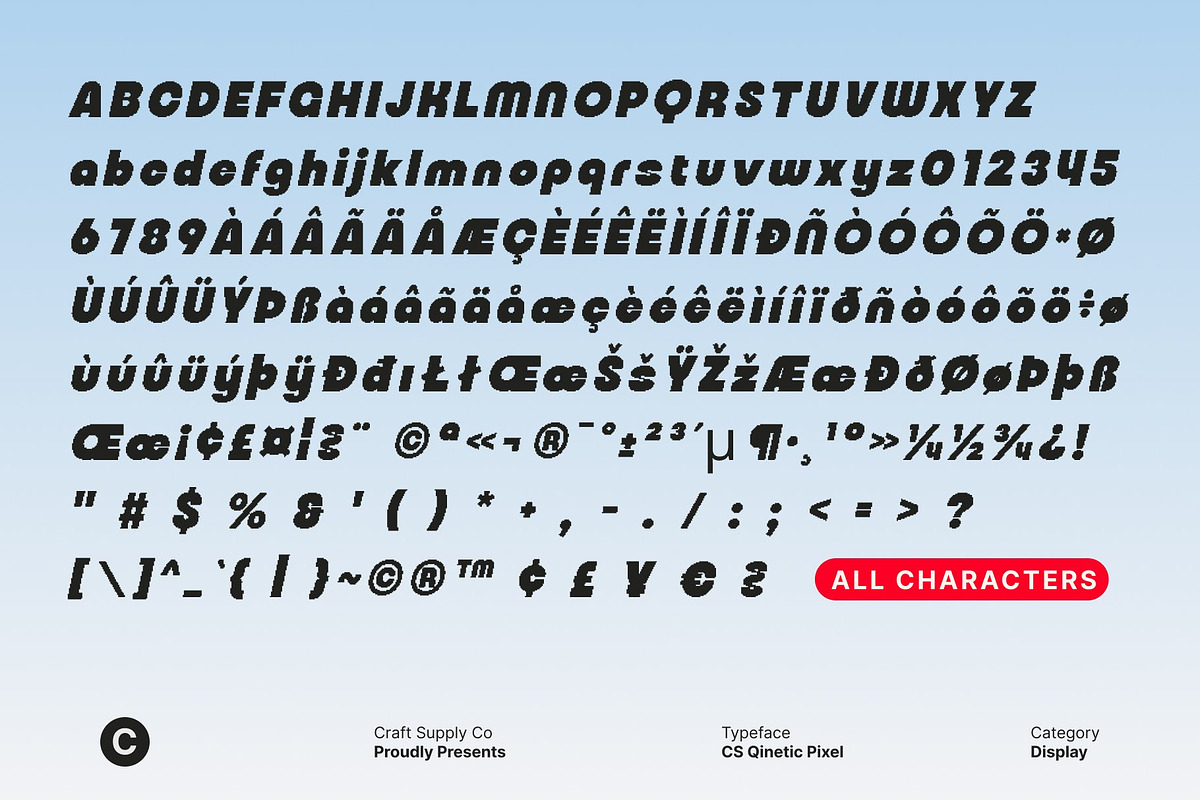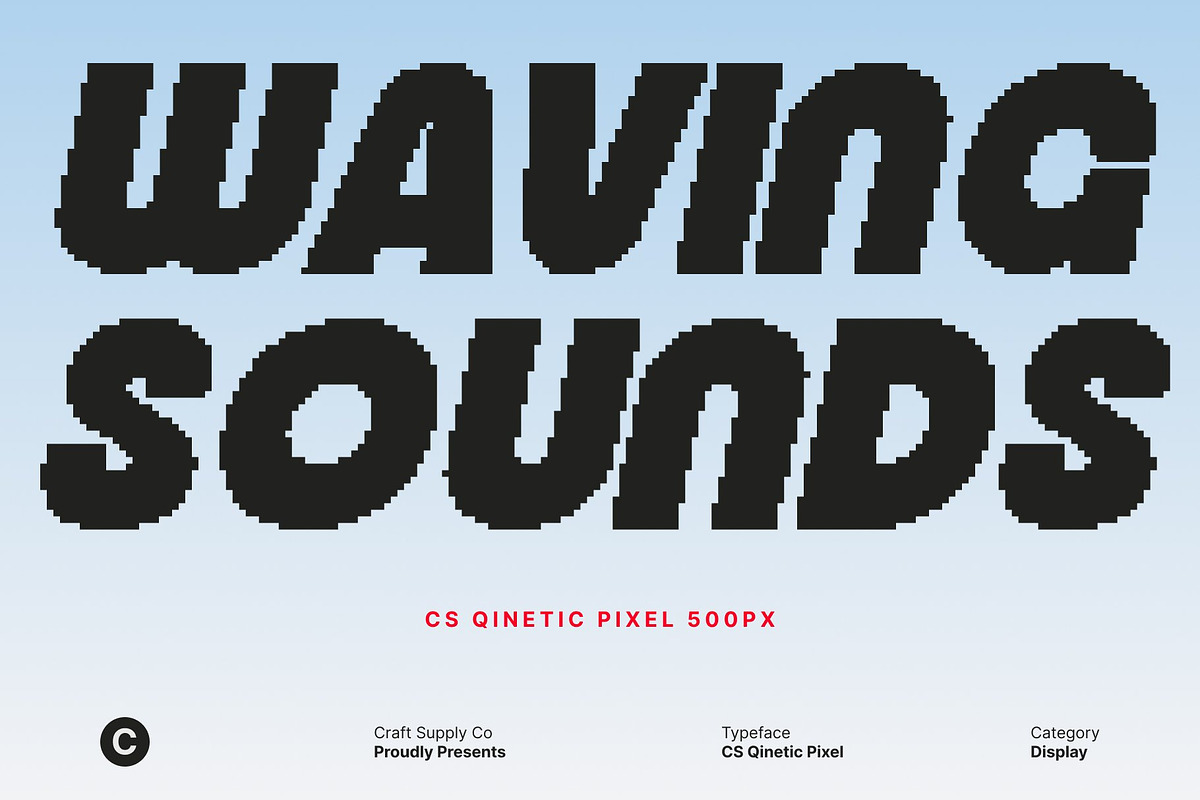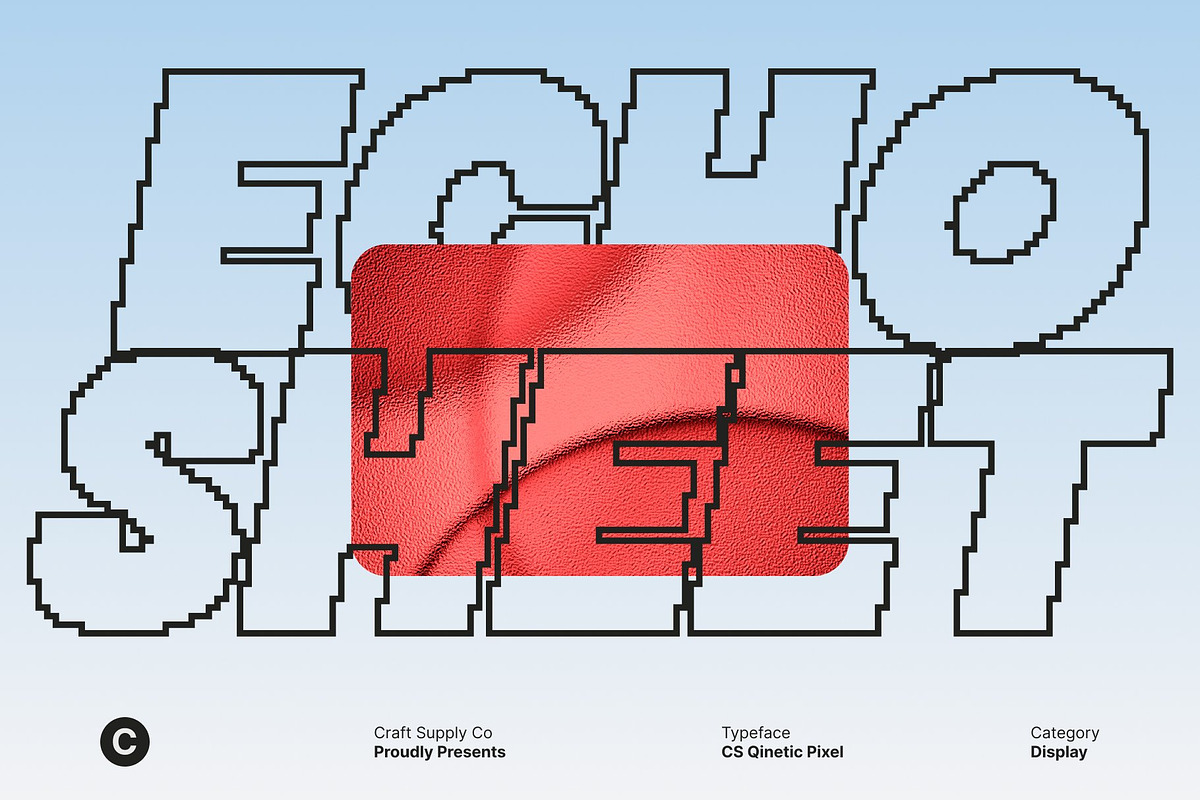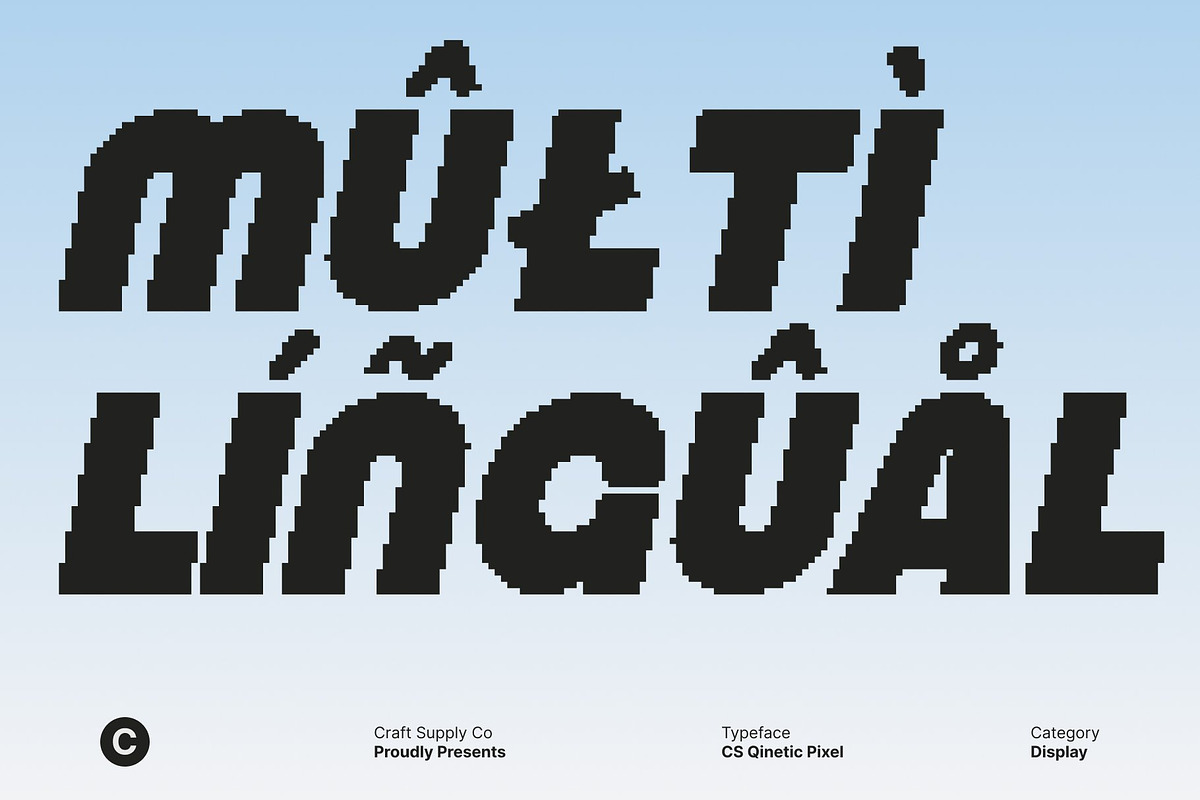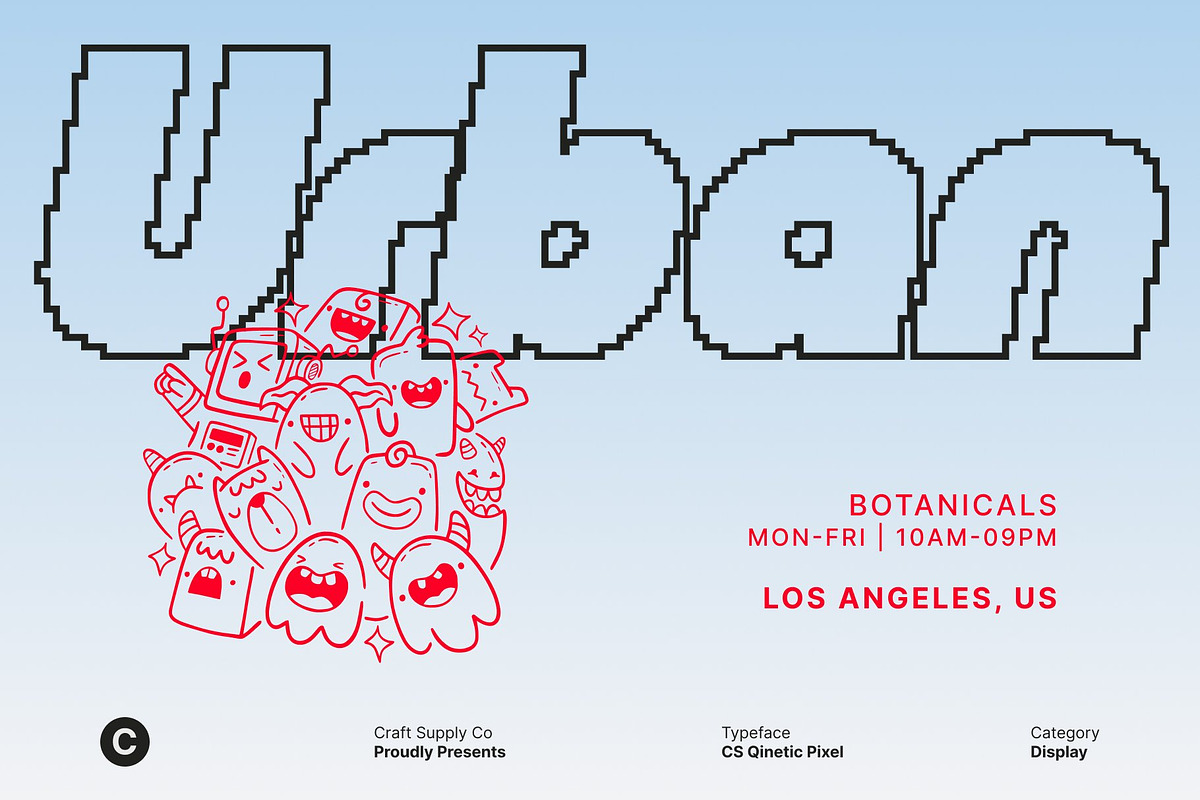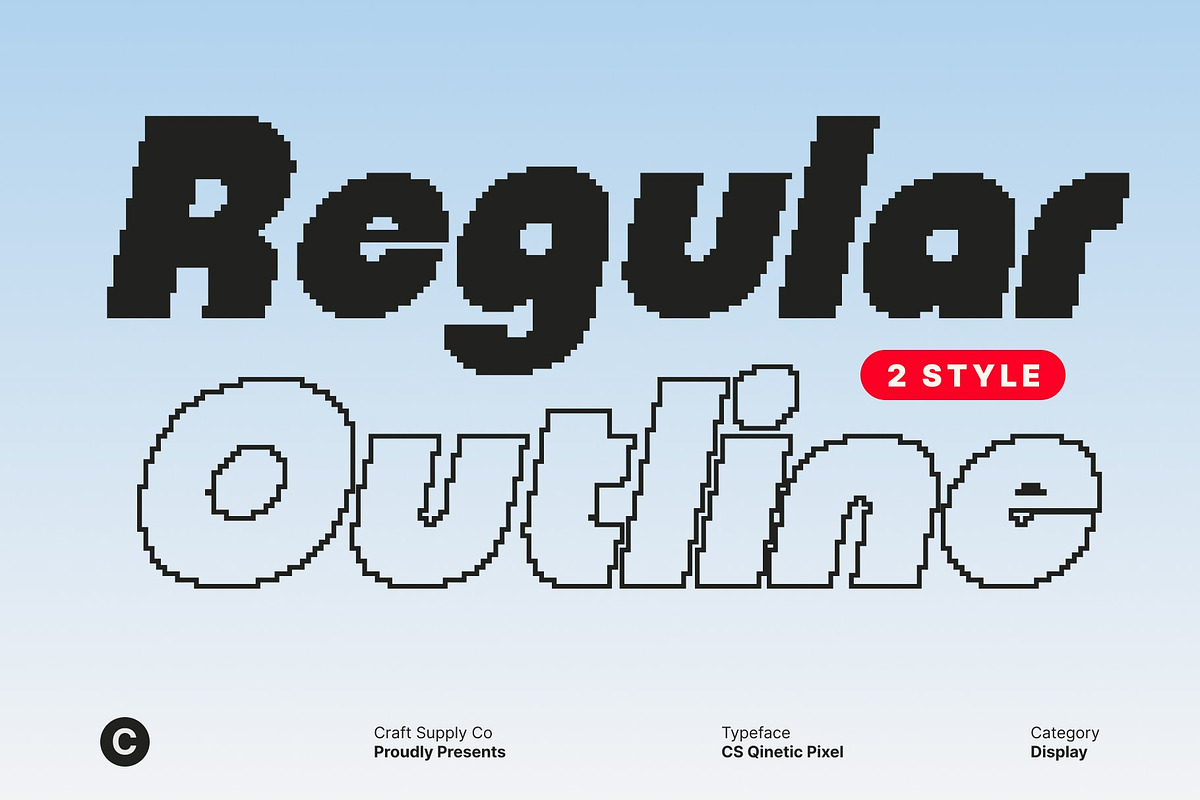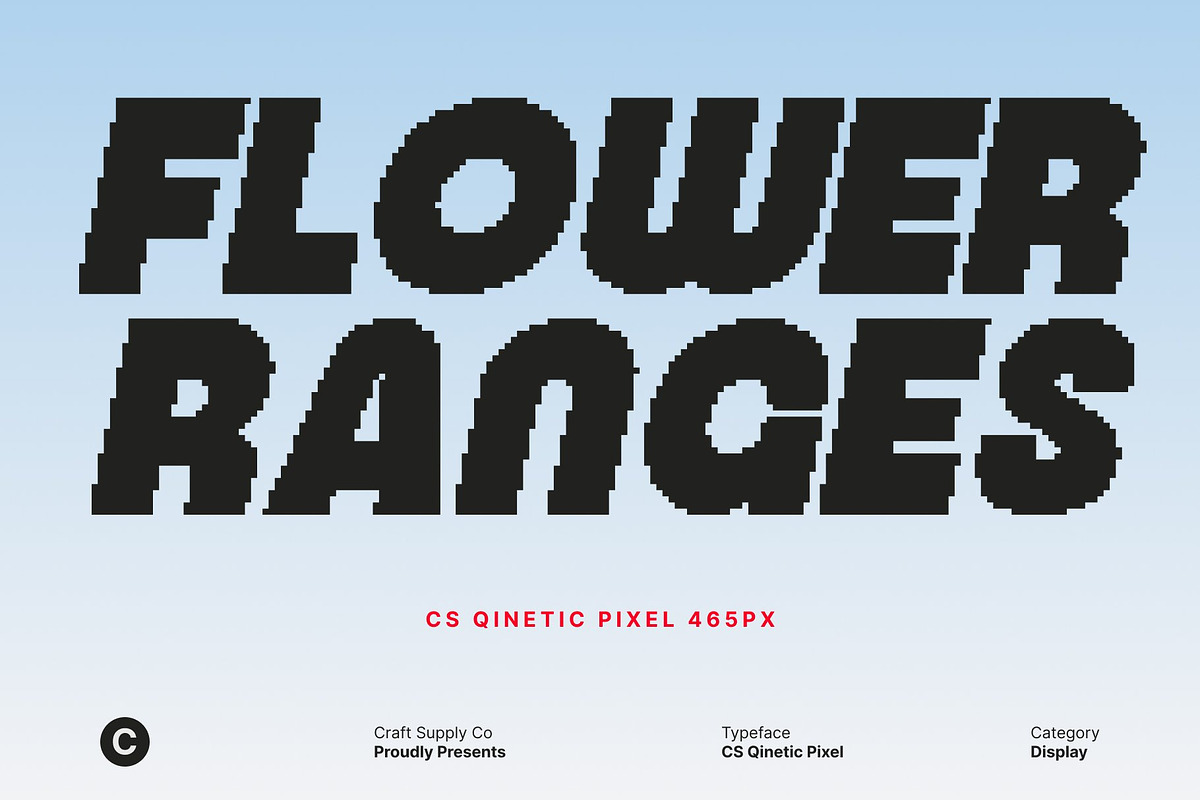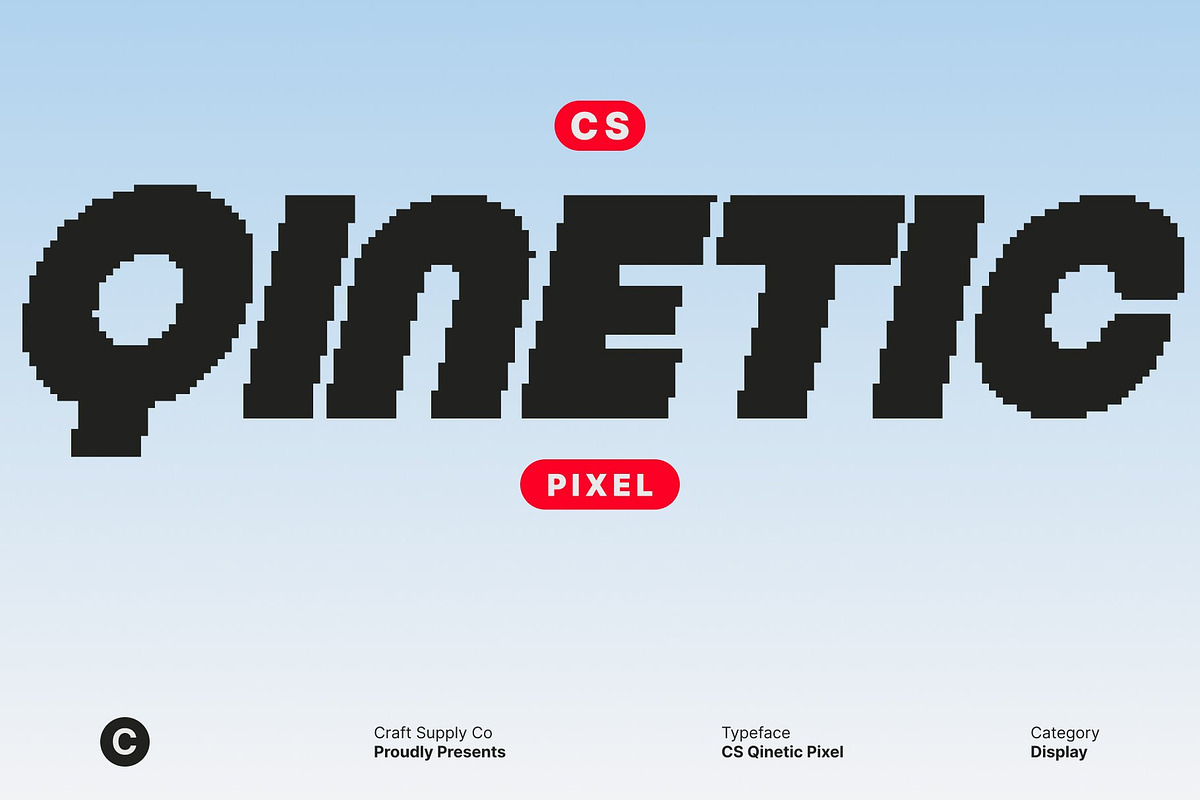
CS Qinetic Pixel
CS Qinetic Pixel – Modern Strength with Digital Precision
Bold Geometric Sans Serif in Pixel Form This is a bold modern sans serif font reconstructed with pixel-based precision. Its strong geometric foundations are translated into clean, structured blocks, creating a powerful visual identity that feels modern, technical, and unmistakably digital. The pixel treatment reinforces clarity while amplifying its bold presence.
Contemporary Impact with Tech-Inspired Character Built for contemporary design environments, this font blends sharp geometry with a retro-digital edge. The clean pixel construction gives each letter a confident, mechanical rhythm, evoking modern interfaces, digital systems, and classic computer aesthetics. It feels professional, assertive, and visually commanding.
Perfect for Digital, Tech, and Retro-Futuristic Designs This font shines in branding, posters, logos, UI elements, gaming visuals, and editorial layouts that demand strength and precision. Its pixel structure makes it especially eye-catching for digital screens, futuristic themes, and old-technology-inspired visuals perfect for designers exploring tech culture or retro-modern concepts.
Bold Readability with Structured Harmony Despite its pixel form and bold weight, maintains excellent readability and balanced proportions. Each character is carefully designed to remain clear and impactful, allowing designers to create strong visual statements without sacrificing legibility. It’s a font that delivers power, clarity, and digital confidence in every application.